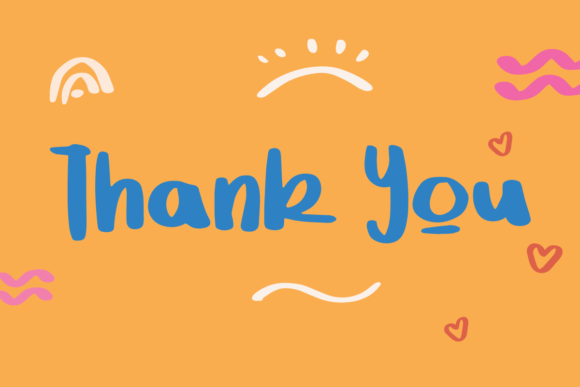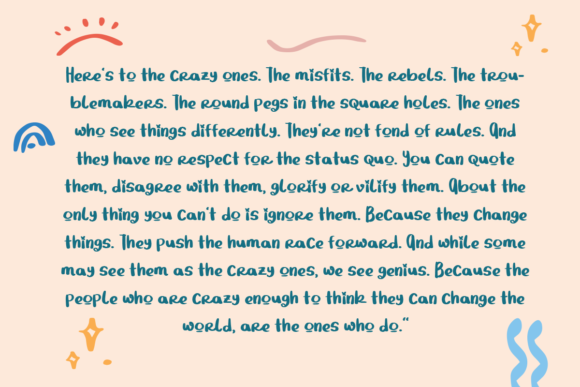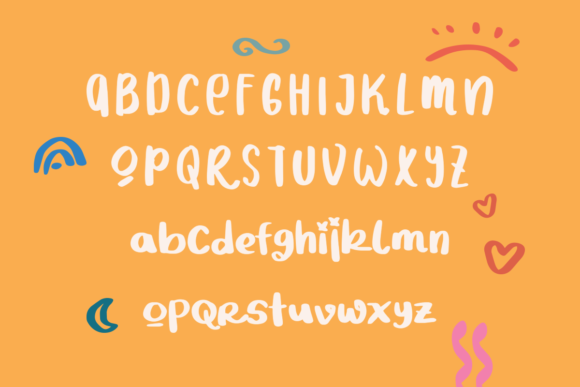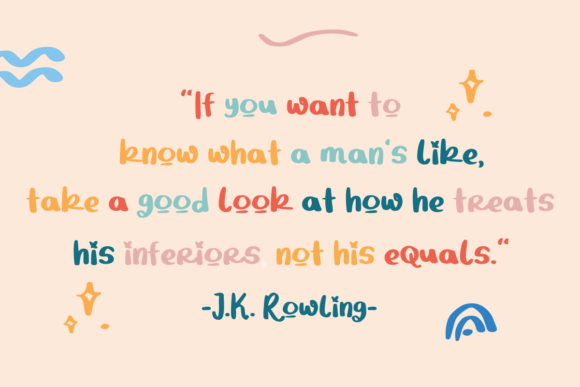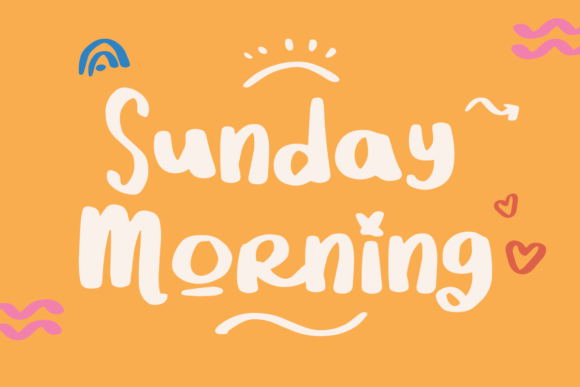
Gorilazy Font: The Playful and Cute Paint Brushed Script Font for Fun Projects
Are you looking for a font that embodies playfulness and authenticity? Do you want to add a touch of fun and whimsy to your children’s activity or school project? Look no further than Gorilazy Font, a playful and cute paint brushed script font that’s perfect for a variety of creative endeavors.
What is Gorilazy Font?
Gorilazy Font is a unique and charming font that’s designed to bring a sense of playfulness and joy to any project. With its paint brushed script style, Gorilazy Font has a fun and spontaneous feel that’s reminiscent of artwork created by children. The font’s irregularities and imperfections add to its charm, giving it a delightfully handmade look that’s sure to capture the imagination of your audience.
Characteristics of Gorilazy Font
Gorilazy Font has several characteristics that make it stand out from other fonts. Some of its key features include:
- Playful and cute design: Gorilazy Font has a playful and cute design that’s perfect for children’s activities, school projects, and other fun endeavors.
- Paint brushed script style: The font’s paint brushed script style gives it a unique and spontaneous feel that’s full of energy and creativity.
- Irregularities and imperfections: Gorilazy Font’s irregularities and imperfections add to its charm, giving it a delightfully handmade look that’s sure to capture the imagination of your audience.
- Easy to read: Despite its playful design, Gorilazy Font is easy to read, making it perfect for use in a variety of contexts, from titles and headings to body text.
Uses for Gorilazy Font
Gorilazy Font is a versatile font that can be used in a variety of contexts. Some of the most popular uses for Gorilazy Font include:
- Children’s activities: Gorilazy Font is perfect for use in children’s activities, such as coloring books, activity sheets, and educational materials.
- School projects: The font’s playful and cute design makes it a great choice for school projects, such as posters, presentations, and reports.
- Crafting and DIY projects: Gorilazy Font is also a great choice for crafting and DIY projects, such as scrapbooking, card making, and other paper crafts.
- Digital design: The font can also be used in digital design, such as social media graphics, blog posts, and other online content.
Tips for Using Gorilazy Font
Here are a few tips for using Gorilazy Font in your projects:
- Use it sparingly: Gorilazy Font is a playful and attention-grabbing font, so it’s best to use it sparingly to avoid overwhelming your audience.
- Pair it with other fonts: Gorilazy Font can be paired with other fonts to create a unique and interesting look. Try pairing it with a sans-serif font for a fun and modern contrast.
- Experiment with colors: The font’s paint brushed script style lends itself well to bold and bright colors. Experiment with different colors to find the perfect look for your project.
Gorilazy Font is a playful and cute paint brushed script font that’s perfect for adding a touch of fun and whimsy to your children’s activity or school project. With its unique and charming design, Gorilazy Font is sure to capture the imagination of your audience and bring a sense of joy and creativity to your project. So why not give Gorilazy Font a try and see the difference it can make?